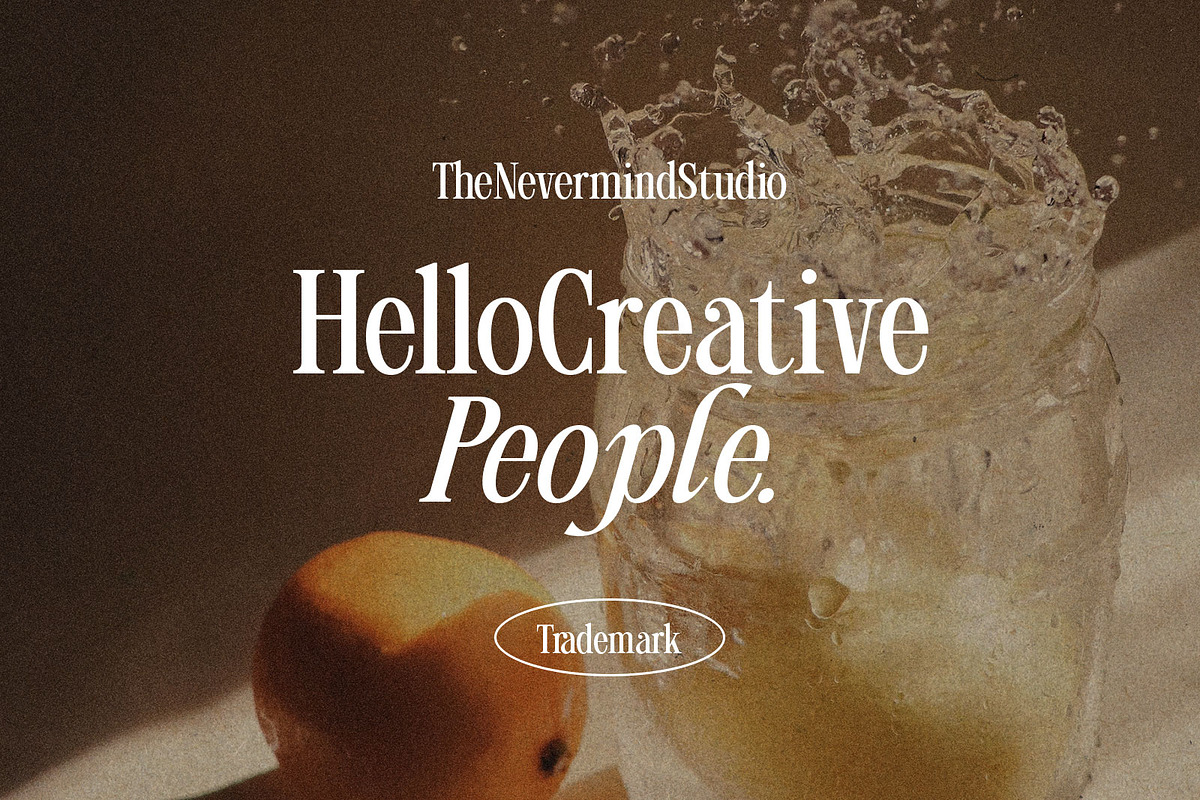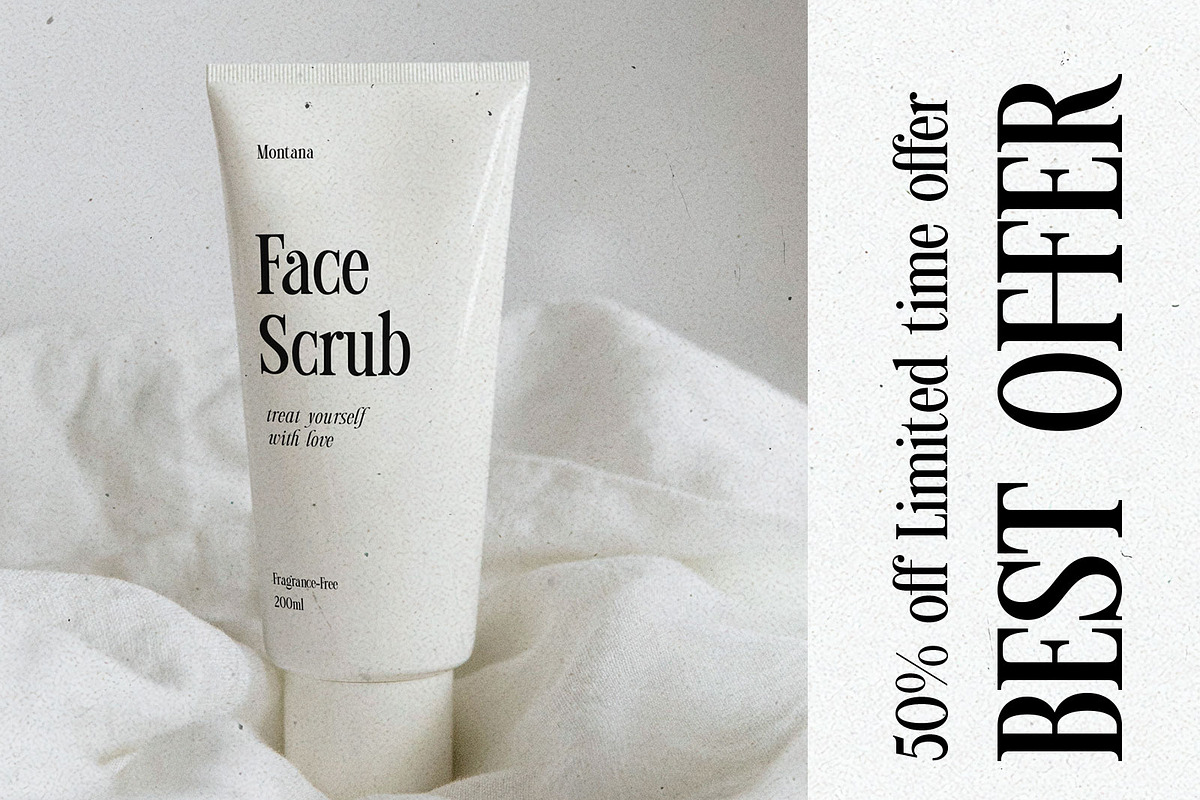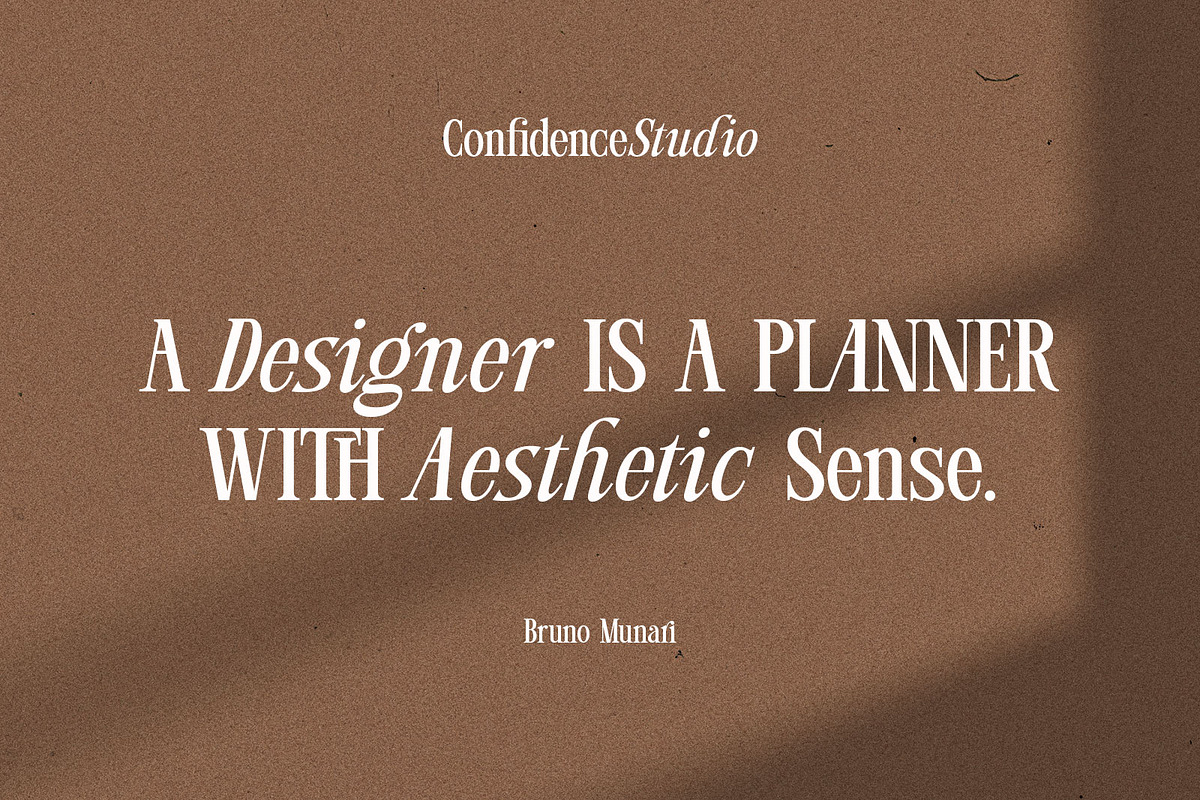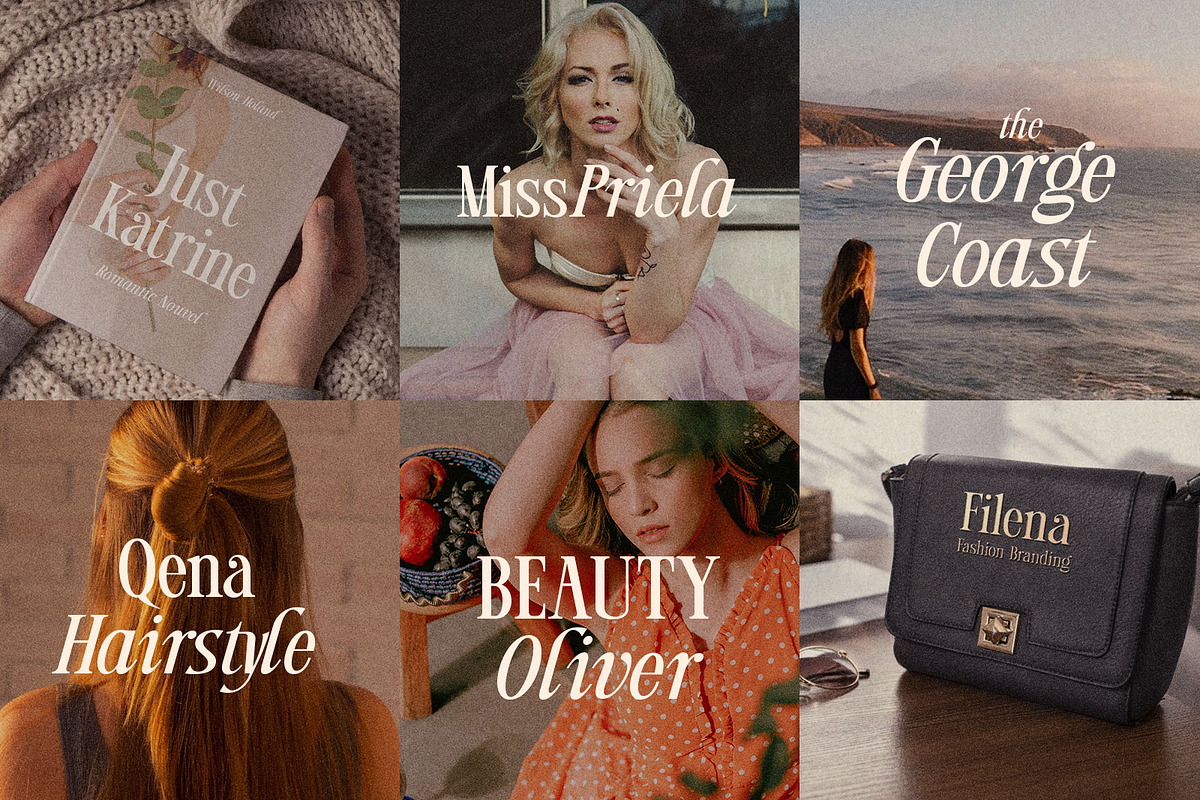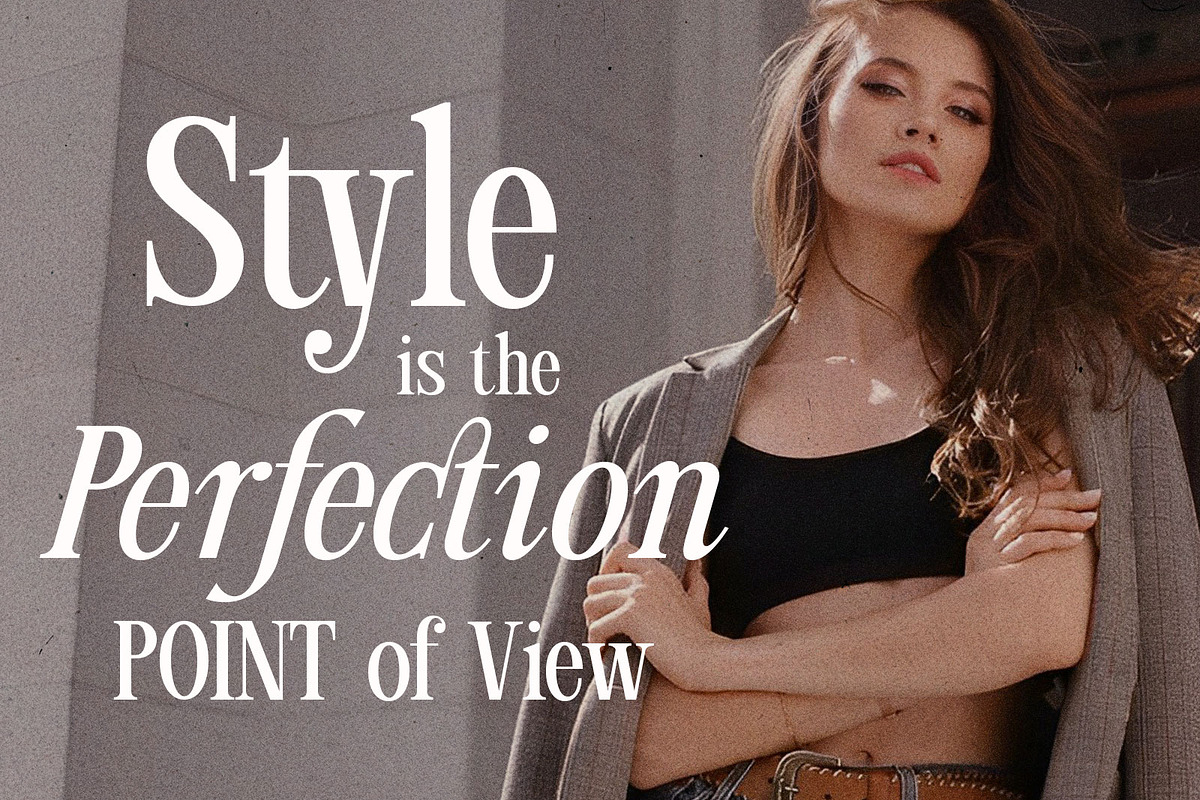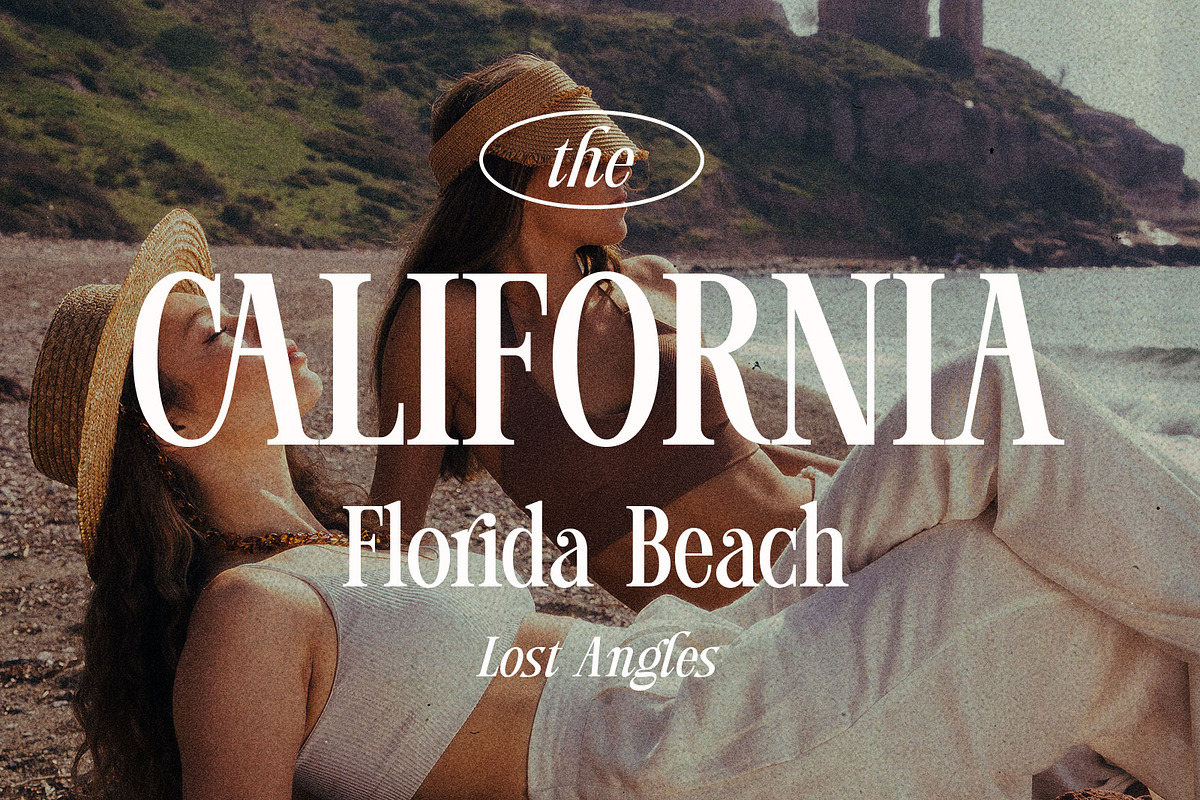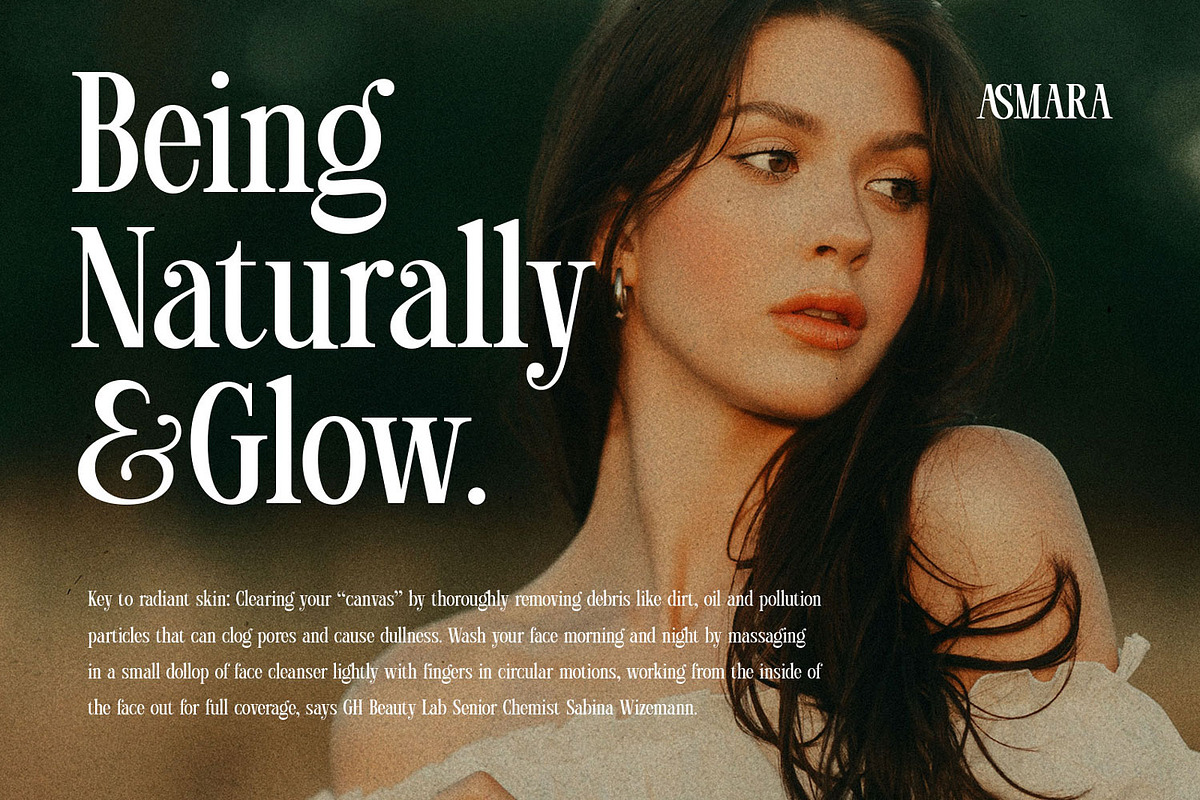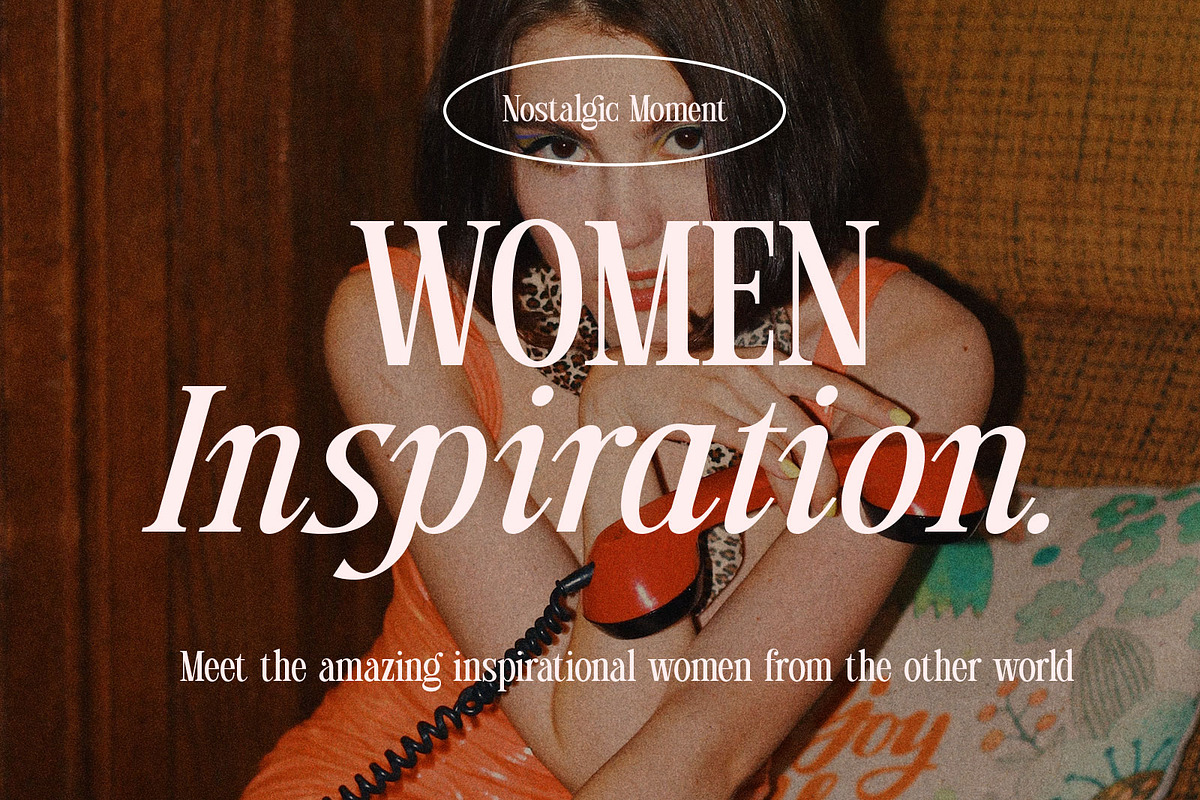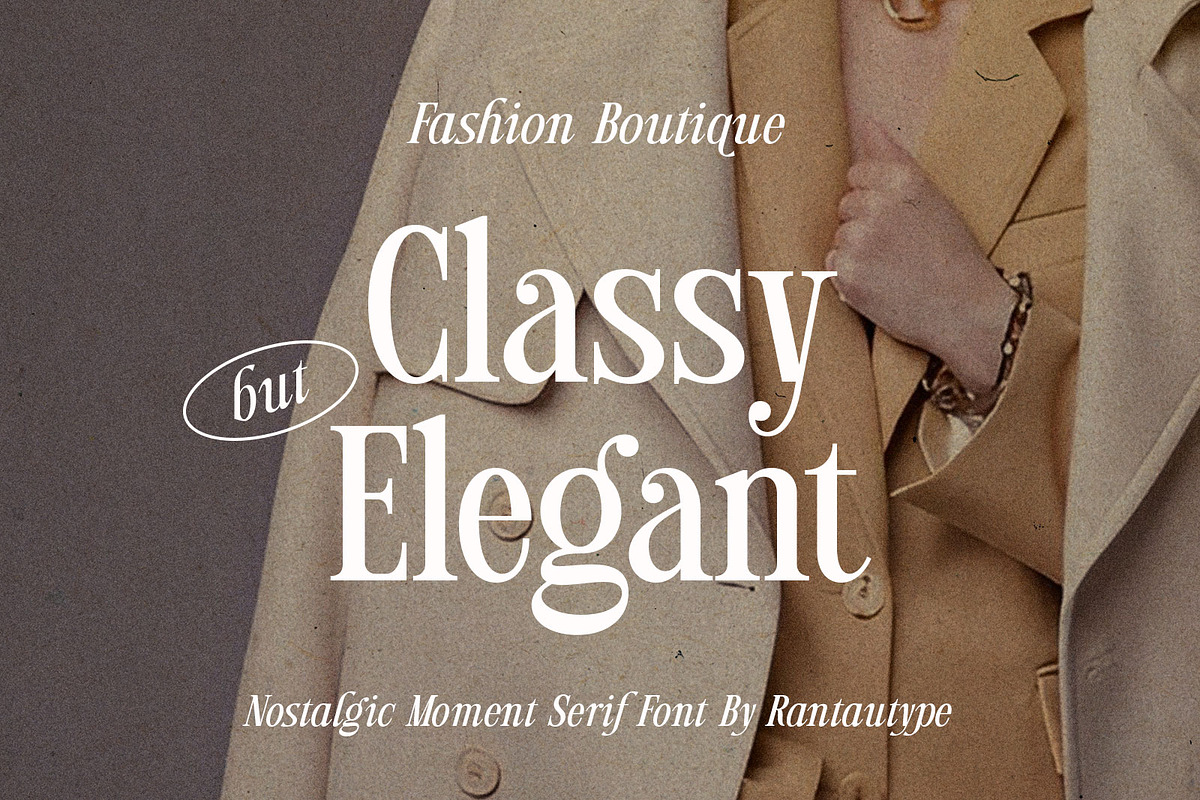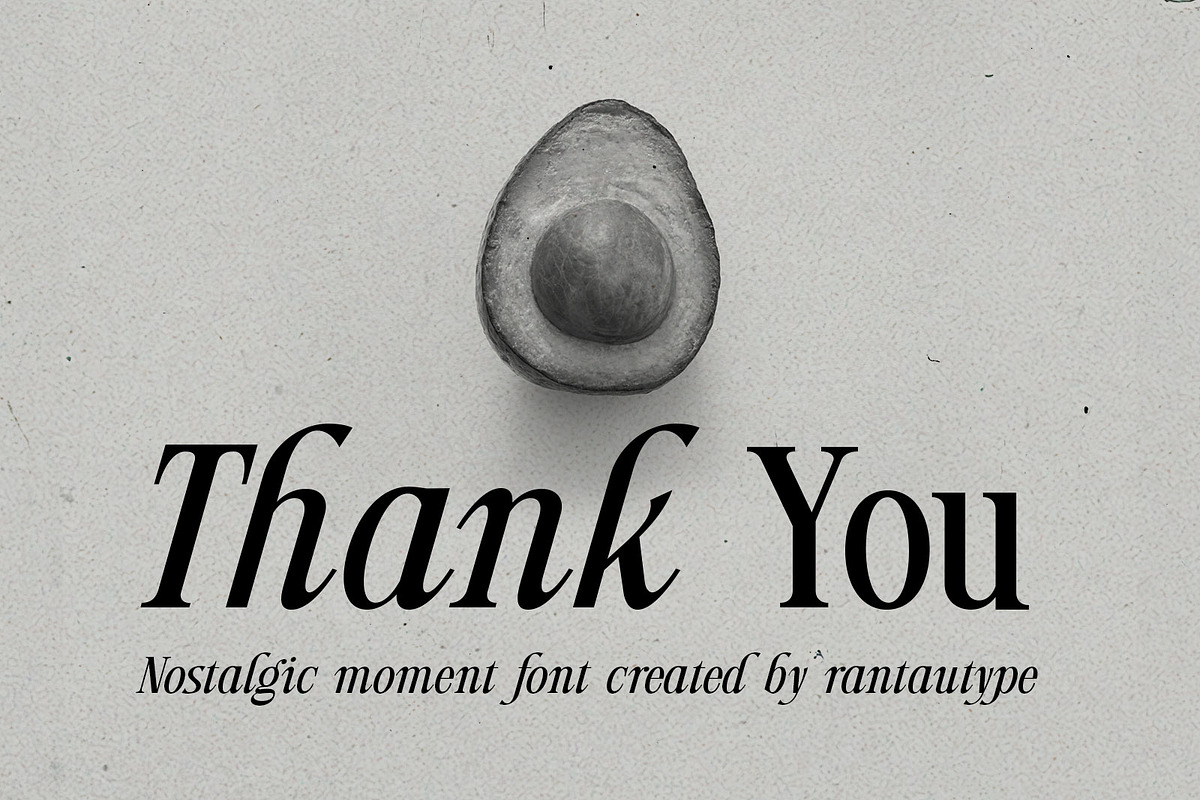
Nostalgic Moment Elegant Serif Font
Nostalgic Moment - is a glamour eighties magazine inspired serif look classy but elegant. Nostalgic Moment display serif font that embraces elegance and grace, both come in two versions one with more contrast and crisper than the other. In true Eighties style, combination the reguler and italic make nostalgic, mix and match them to create eye-catching effects. With its versatility and contemporary appeal. Nostalgic Moment come with ligature and multilinggual support.
Nostalgic Moment is a beautiful choice for any creative endeavor, creating elegant, modern, chic, lifestyle design such as logos, title, cover, branding, invitations, wedding designs, display and magazine, social media posts, advertisements, printed quotes, product packaging, product designs, labels, photography, watermarks, special events and more. Now you can using Nostalgic Moment to make a stunning design.